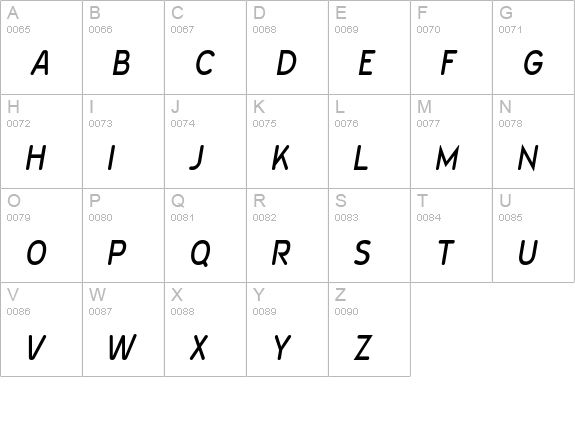
Wevli Condensed Medium Italic Font Details
Wevli Condensed Medium Italic is a balanced, medium-weight, condensed-width, italic variant in the Wevli typeface family \xE2\x80\x94 well suited to sub-headlines, navigation, and balanced editorial work.
The Wevli Condensed Medium Italic font is a sleek and modern typeface that exudes sophistication and elegance. Its condensed design allows for efficient use of space while maintaining readability and style. The italicized version adds a touch of flair and emphasis to your text. This versatile font is perfect for a wide range of projects, from branding to editorial design. Whether you're creating a sleek logo or designing a stylish magazine layout, Wevli Condensed Medium Italic is sure to make a statement. Best of all, this font is available for free download at FontsMarket.com. Take advantage of this opportunity to enhance your design projects with the Wevli Condensed Medium Italic font today!